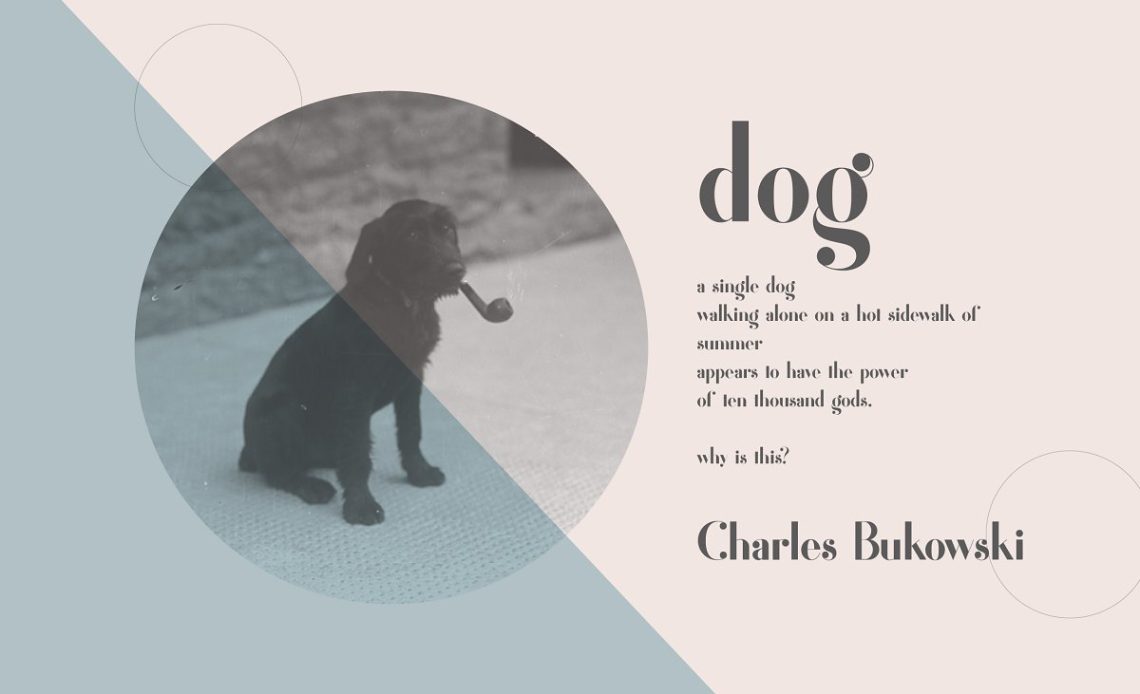
Looking for a font that's delicate, elegant, and perfect for your personal website? Look no further than Fragile - A Delicate Typeface, created by the talented Josh Ownby. Fragile is a sans serif font family that draws inspiration from vintage letterforms of the '60s and '70s, making it an excellent choice for vintage graphics, logos, wedding invitations, editorials, and more.
With Fragile, you'll get uppercase and lowercase characters, as well as discretionary ligatures that add a touch of sophistication to your designs. And with multilingual support for a variety of languages, including French, German, Spanish, Portuguese, Italian, Dutch, Finnish, Swedish, and more, Fragile is a truly versatile font that will elevate your designs to the next level.
But what sets Fragile apart is its unique ability to add personality and character to your designs. Whether you're creating a stunning headline or a delicate look, Fragile has got you covered. And with Opentype features like discretionary ligatures, you can easily customize your designs to create a truly one-of-a-kind look.